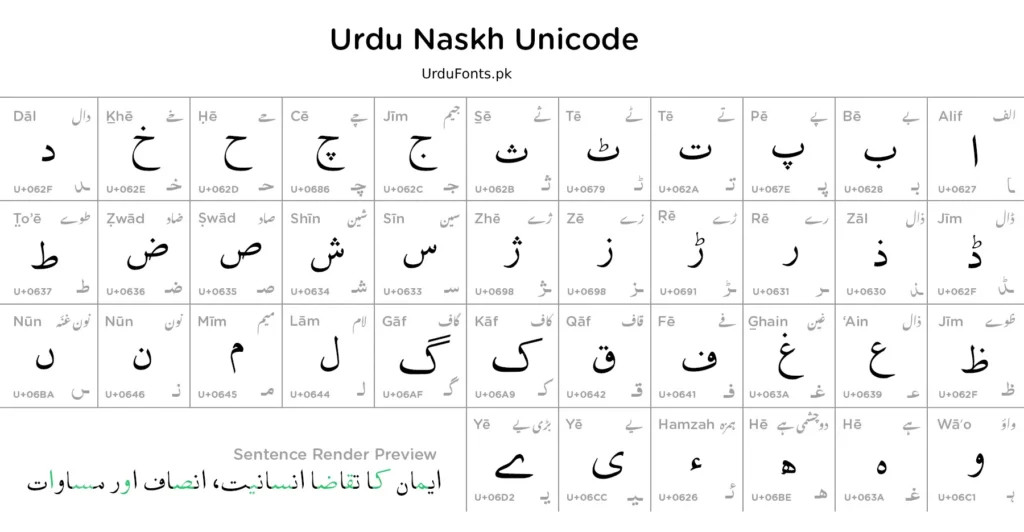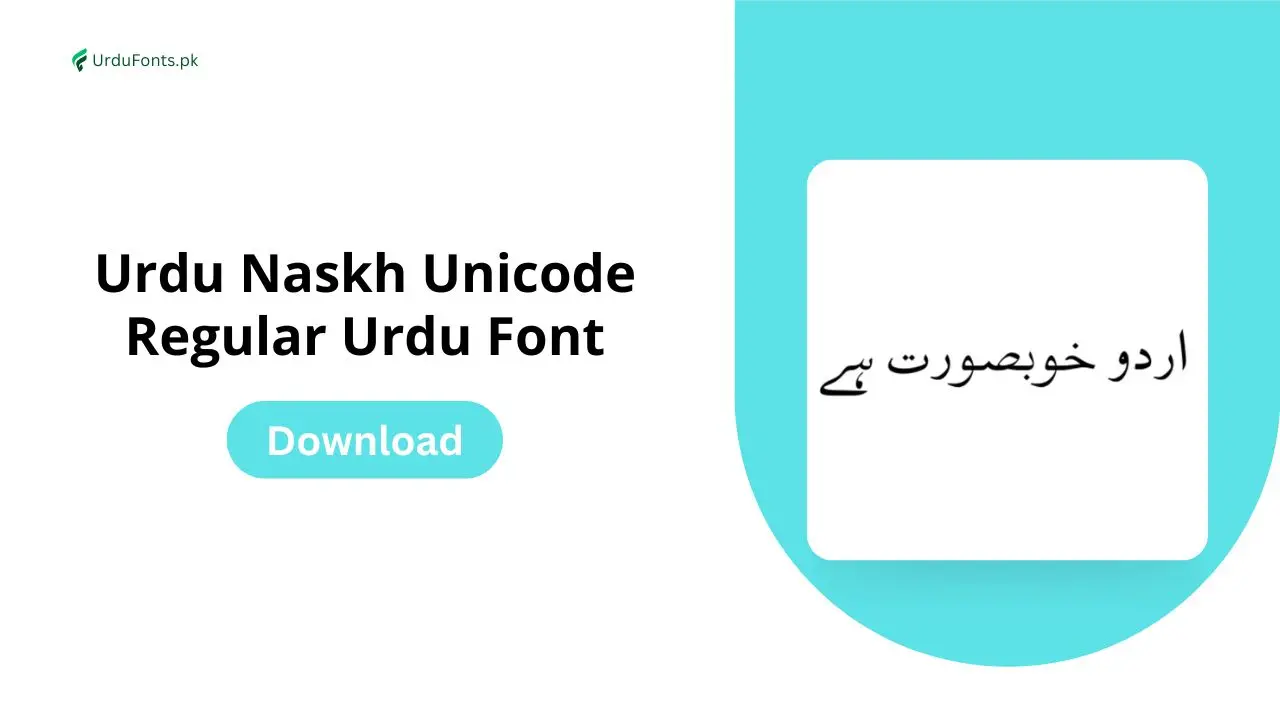
Urdu Naskh Unicode Regular is a versatile font that brings the classic Naskh script style into the digital age. This article explores the font’s characteristics, uses, and how to download it for your projects.
What is Urdu Nastaliq Unicode Regular?
Urdu Naskh Unicode Regular is a digital typeface that faithfully reproduces the clear, and legible style of the Naskh script. It combines traditional aesthetics with modern Unicode compatibility, making it suitable for a broad range of digital and print applications.
Urdu Naskh Unicode Regular is designed for seamless integration across various software. Its Unicode compliance ensures proper text rendering and minimizes encoding issues, making it an excellent choice for cross-platform and multilingual projects.
Whether you’re designing websites, preparing academic papers, or creating marketing materials, Urdu Naskh Unicode Regular offers a versatile solution for Urdu typography. Its clear letterforms ensure excellent legibility across various sizes, making it suitable for both detailed body text and impactful headlines.
Key Features
- Clean, legible Naskh style
- Unicode-compliant for universal compatibility
- Supports Urdu, Arabic, and Persian scripts
- Consistent letterforms for professional appearance